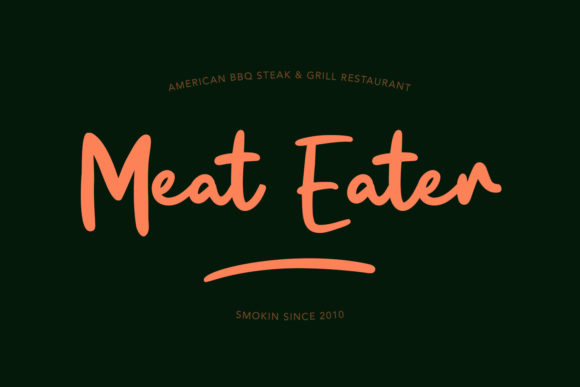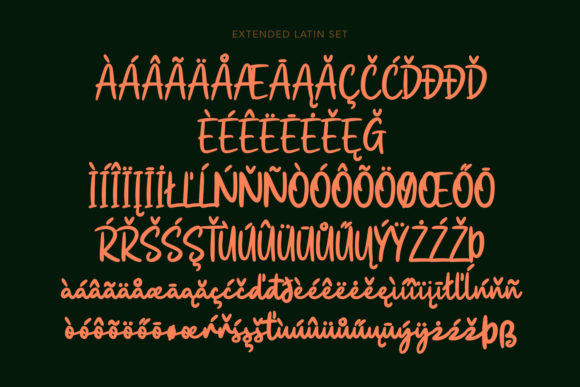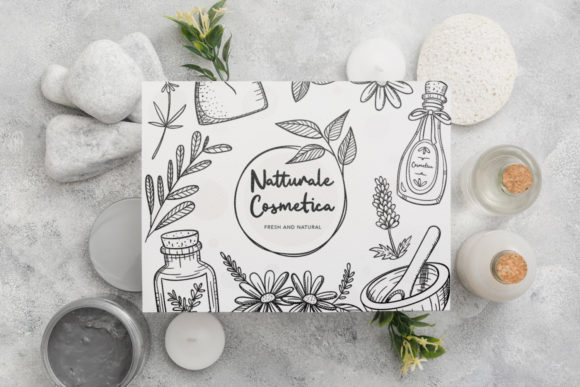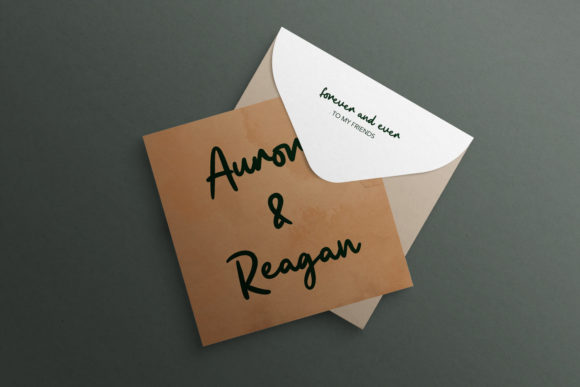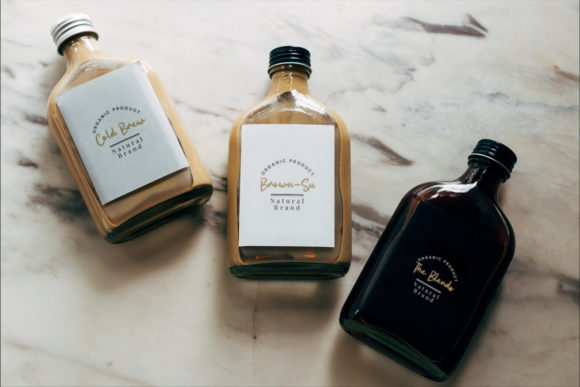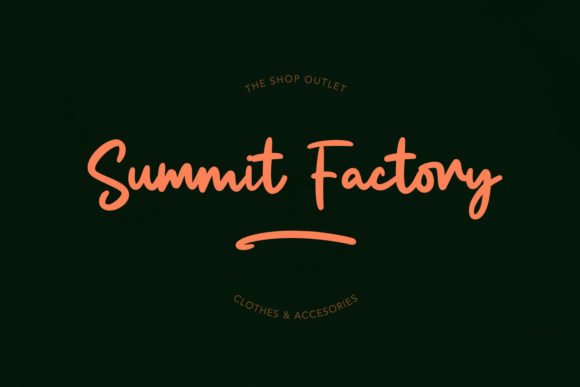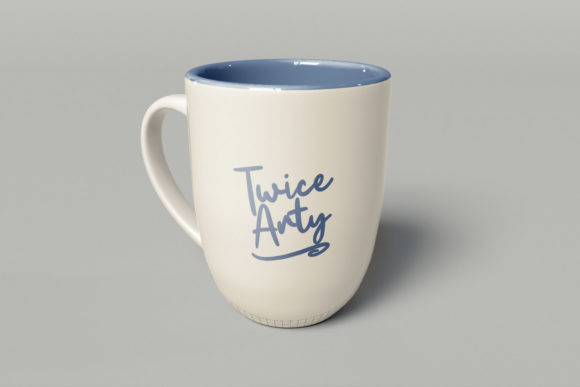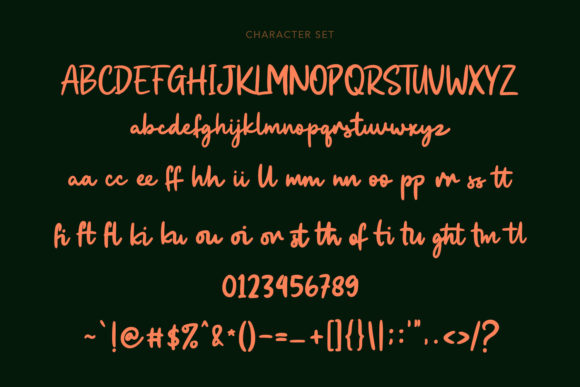
Glofuts Font
About Glofuts Font
Glofuts is a cute paint brushed handwritten font. Its sweet and full of life style makes this font a wonderful choice for brightening up your designs.